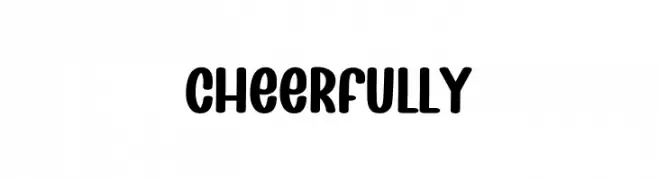
A modern sans-serif font with clean, geometric lines and uniform stroke width.
Handwritten, playful font with irregular strokes.
A bold, dynamic script font with fluid, cursive strokes.
A modern, monospaced typeface with clean lines and uniform spacing.
A bold, modern font with clean lines and excellent readability.
A bold, italicized font with a modern and assertive style.
A clean, modern monospaced typeface ideal for coding.
A bold, monospaced font ideal for coding and technical use.
A bold, italicized font with strong strokes and a modern aesthetic.
A modern, monospaced font perfect for coding and technical documents.
A modern, light, and italicized font with clean lines and balanced spacing.
A modern, italic font with clean lines and balanced proportions.
A clean, modern monospaced font ideal for coding and technical documents.
A modern, light, italic sans-serif font with clean lines and normal spacing.
A modern, monospaced font with clear legibility and uniform spacing.
A modern, medium-weight italic sans-serif font with clear, balanced characters.
A modern, monospaced italic font ideal for coding and technical documentation.
A bold, rounded, and playful font with a bubbly appearance.
A geometric and decorative font with intersecting lines and circles.
A bold, brush script font with dynamic and expressive strokes.
A bold, brush-style font with dynamic and expressive strokes.
A bold, expressive handwritten font with fluid strokes and dynamic style.
A playful, bold font with a whimsical, hand-drawn style.
Elegant handwritten script with a signature style.
A bold, playful font with exaggerated curves and angles, perfect for lively designs.
A playful, handwritten-style font with bold, irregular characters.
A bold, high-contrast font with elegant serifs and a modern yet classic style.
A bold, high-contrast serif font with elegant and modern characteristics.
A bold, medieval-inspired font with sharp serifs and elongated letterforms.
A bold, medieval-inspired font with sharp, angular lines and a Gothic aesthetic.
A bold, distressed font with a vintage grunge aesthetic and sharp serifs.
A bold, decorative font with a medieval, geometric style.
A bold, vintage font with a distressed, weathered texture and sharp serifs.